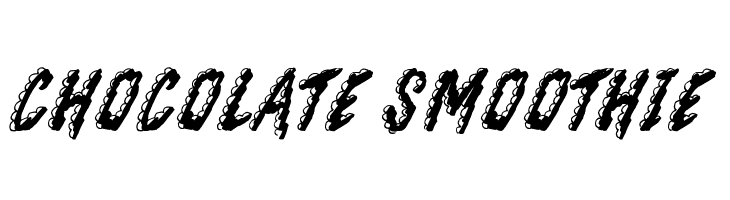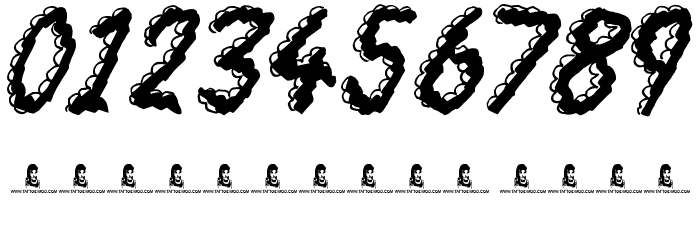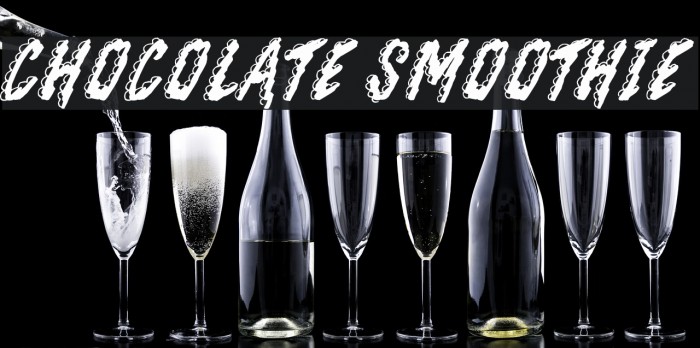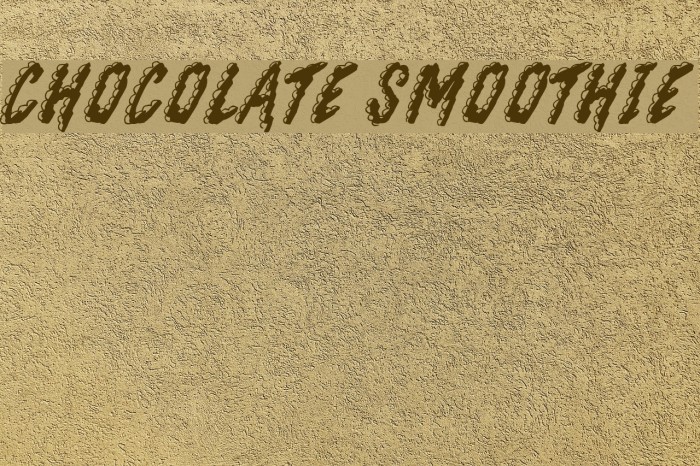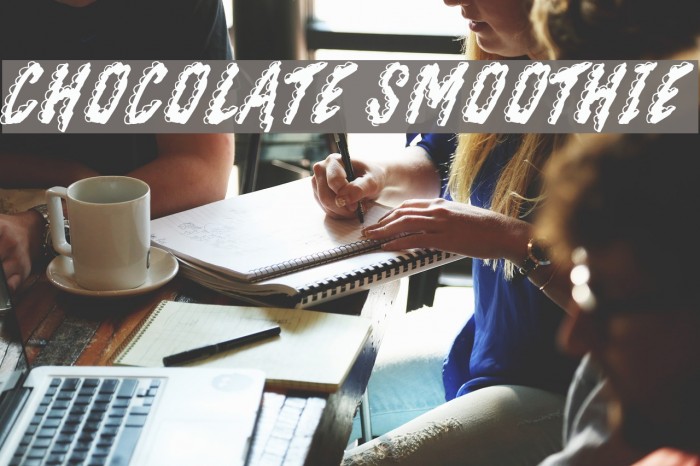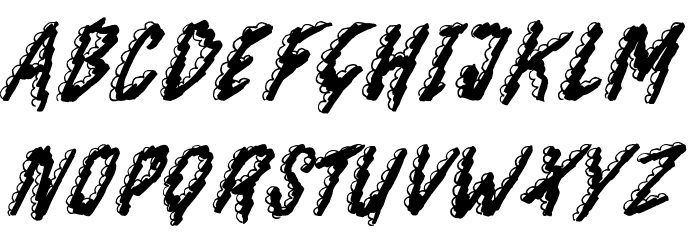
Chocolate Smoothie Font
This font features a playful and bold design with a unique, bubbly texture that resembles a smooth, flowing liquid. The characters are crafted with a dynamic, hand-drawn style, giving them a lively and energetic appearance. The strokes are thick and rounded, creating a sense of movement and fluidity. The font's whimsical nature makes it stand out, with each letter appearing as if it's been carefully sculpted from a rich, creamy substance. The overall look is both fun and eye-catching, perfect for projects that require a touch of creativity and flair.
A playful, bubbly font with a hand-drawn, dynamic style.
• Proposed Projects: Ideal for children's book covers, playful branding, creative posters, and fun social media graphics.